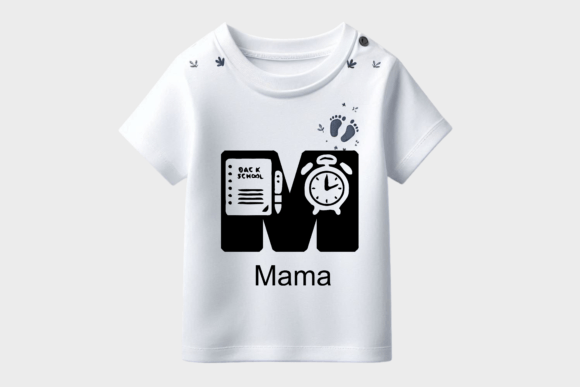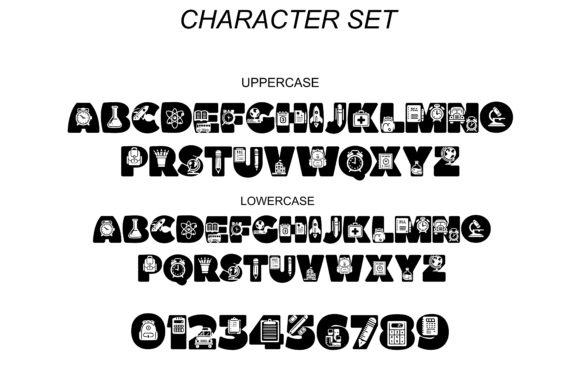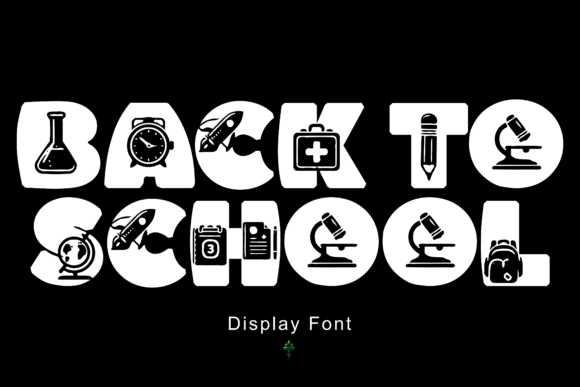
Unleash Your Creativity with the Back to School Font
As the new academic year approaches, designers and crafters are on the lookout for innovative and captivating typography to add a personal touch to their projects. Look no further than the Back to School Font, a meticulously crafted typeface that embodies unlimited inventiveness and creativity. In this article, we’ll delve into the depths of this typographical wonder and explore its unique features, uses, and benefits.
The Essence of Back to School Font
The Back to School Font is a stunning fusion of methodical accuracy and invigorating unpredictability. Its skillful design augments the allure of artistic ventures, pulling you into its unique individual character traits and infusing your work with a matchless aesthetic spirit. This font is perfect for designers, crafters, and educators seeking to add a lively and engaging touch to their projects.
Key Features of Back to School Font
- Unique Character Traits: The Back to School Font boasts a distinct and quirky personality, making it perfect for projects that require a touch of whimsy and playfulness.
- Highly Versatile: This font is suitable for a wide range of applications, from educational materials and crafts to digital graphics and social media posts.
- Easily Readable: Despite its creative and artistic flair, the Back to School Font remains highly legible, ensuring that your message is conveyed clearly and effectively.
- Scalable: This font is designed to perform well at various sizes, making it perfect for both large and small-scale projects.
Uses of Back to School Font
The Back to School Font is an incredibly versatile typeface, suitable for a wide range of applications, including:
- Educational Materials: Create engaging and interactive learning materials, such as worksheets, activity sheets, and educational posters.
- Crafts and DIY Projects: Add a personal touch to your craft projects, such as handmade cards, gift tags, and scrapbooking pages.
- Digital Graphics: Use the Back to School Font to create eye-catching digital graphics, such as social media posts, blog headers, and email newsletters.
- Signage and Displays: Create attention-grabbing signage and displays for schools, libraries, and educational institutions.
Tips for Using Back to School Font
To get the most out of the Back to School Font, follow these expert tips:
- Experiment with Colors: Pair the Back to School Font with a vibrant color scheme to create visually striking designs.
- Mix and Match: Combine the Back to School Font with other fonts to create a unique and eye-catching typography.
- Pay Attention to Spacing: Ensure that your text is properly spaced to maintain readability and visual appeal.
The Back to School Font is a game-changer for designers, crafters, and educators seeking to add a touch of creativity and whimsy to their projects. With its unique character traits, versatility, and readability, this font is sure to become a staple in your design toolkit. So why wait? Dive into the world of Back to School Font and unleash your creativity today!